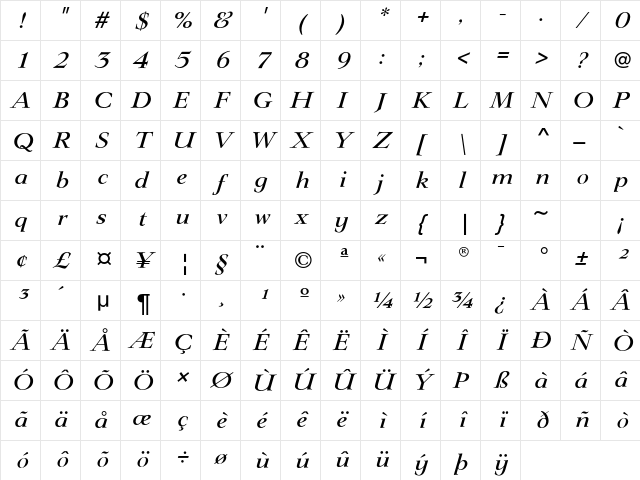
LingwoodEF MediumItalic
Style: MediumItalic
LingwoodEF Family
LingwoodEF MediumItalic
Complete LingwoodEF MediumItalic glyph index. Displaying only characters natively supported by LingwoodEF MediumItalic font.
Design Context for LingwoodEF
LingwoodEF echoes the hand-painted signage and woodblock typography of the American frontier, with a warm, rugged personality. The slanted form adds forward momentum and visual energy.
Font Pairing: Combine LingwoodEF with a simple slab or neutral sans - period-accurate companions reinforce the vintage feel without competing for attention.
Pro Tip: Use LingwoodEF for short, impactful bursts of text - it shines in poster headlines and product names rather than extended copy.